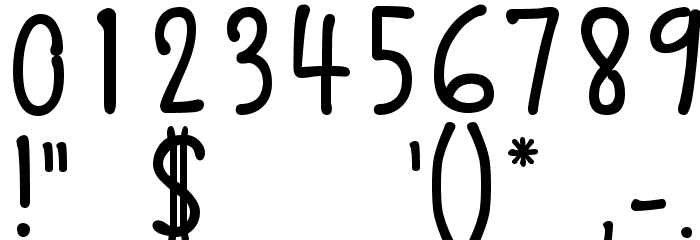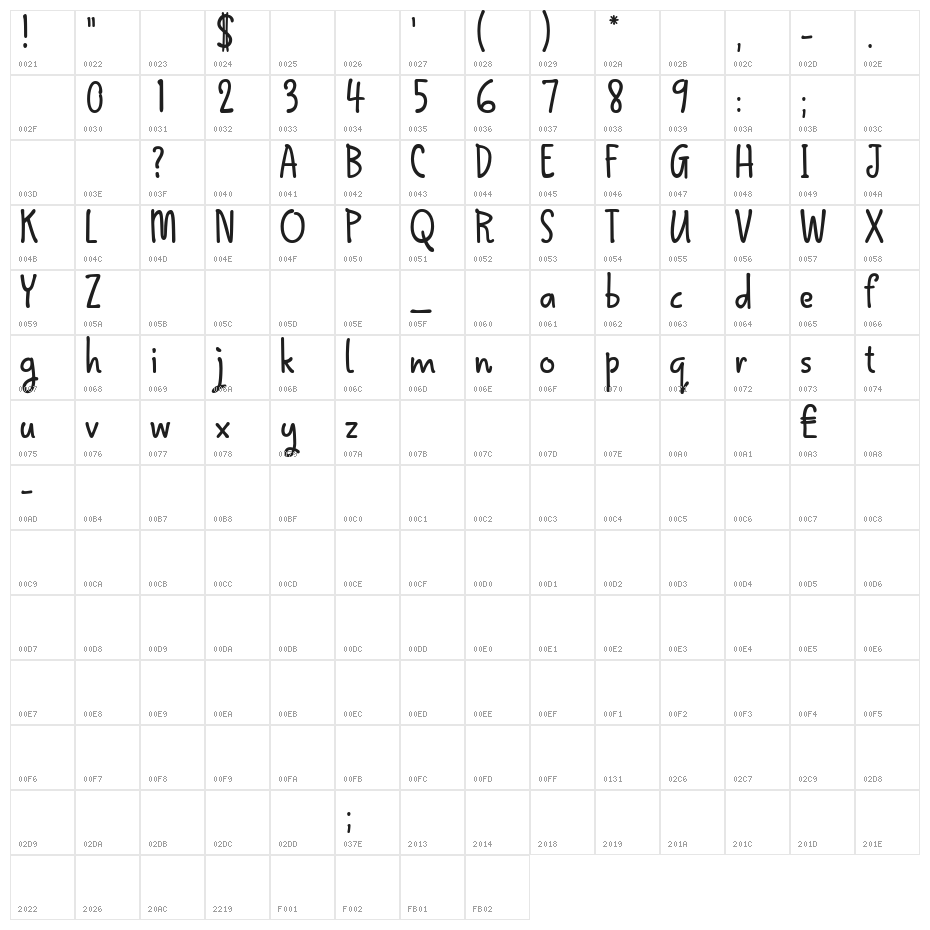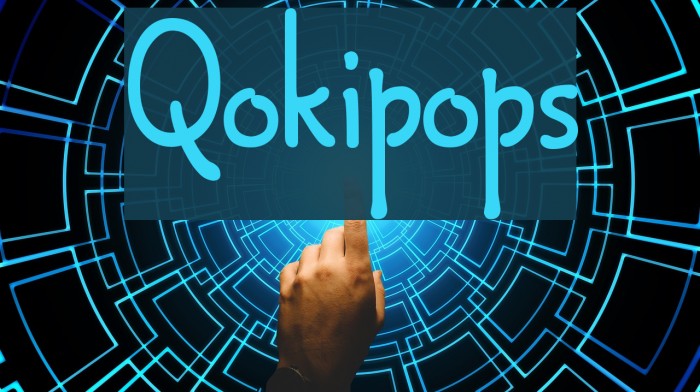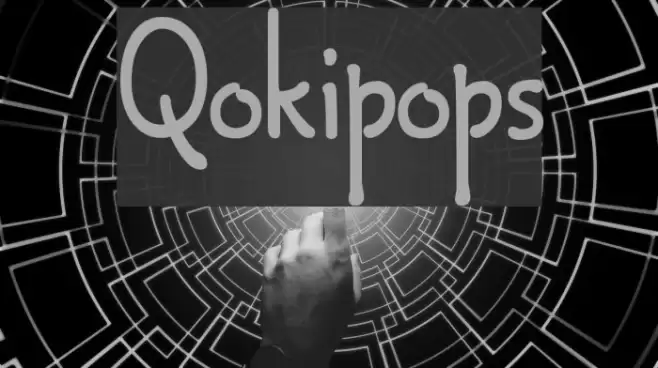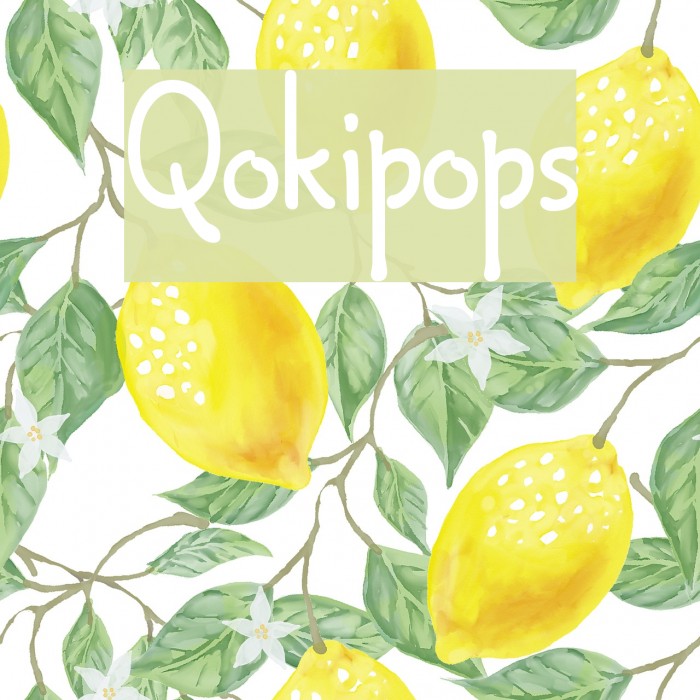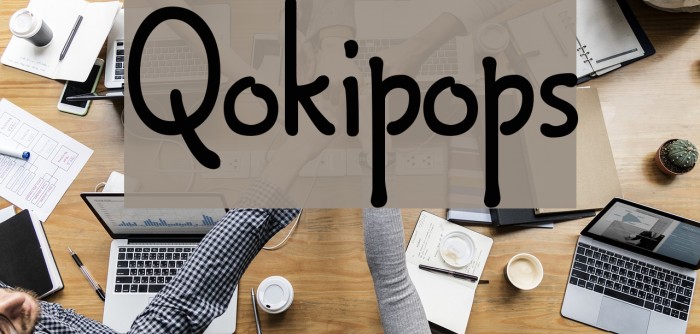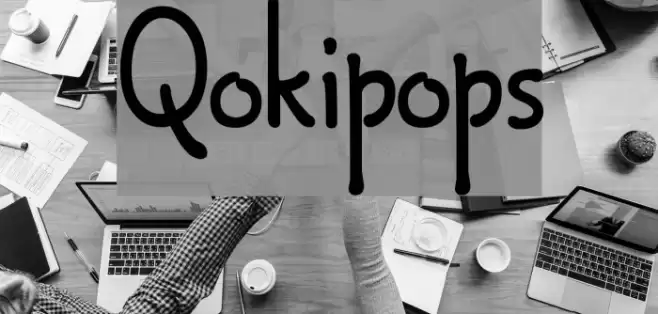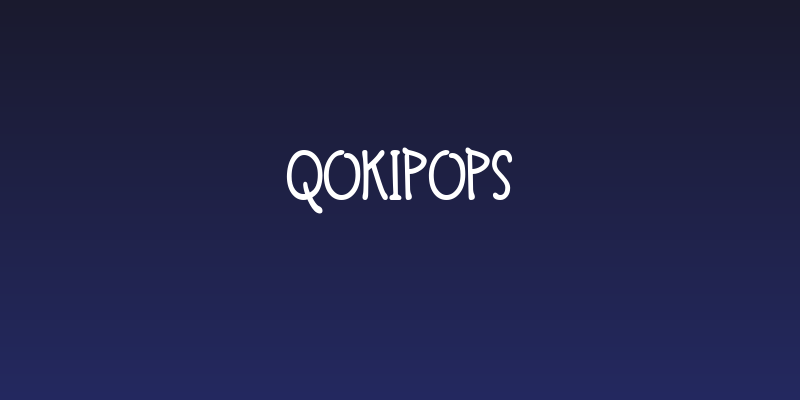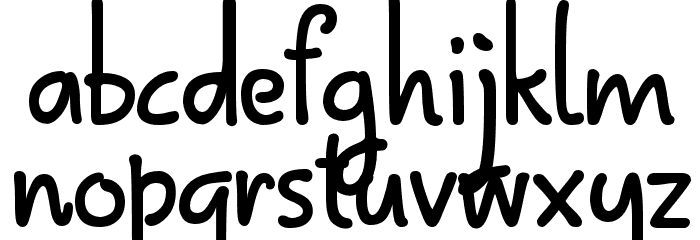
Qokipops Font
Qokipops Description
This playful and whimsical font features a handwritten style with a casual and friendly appearance. The letters are slightly irregular, adding a personal touch that mimics natural handwriting. The uppercase and lowercase characters maintain a consistent flow, with rounded edges and a smooth, flowing line quality. The numbers and special characters are designed to match the overall style, ensuring a cohesive look across all text. This font is perfect for projects that require a fun and approachable aesthetic, such as children's books, greeting cards, or informal branding materials. Its unique charm makes it stand out while remaining legible and versatile.
| Overall Style | Casual, Whimsical |
| Proposed Projects | Ideal for children's books, greeting cards, and informal branding. |